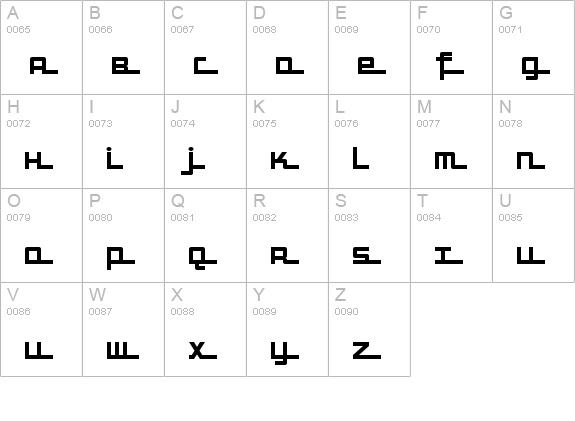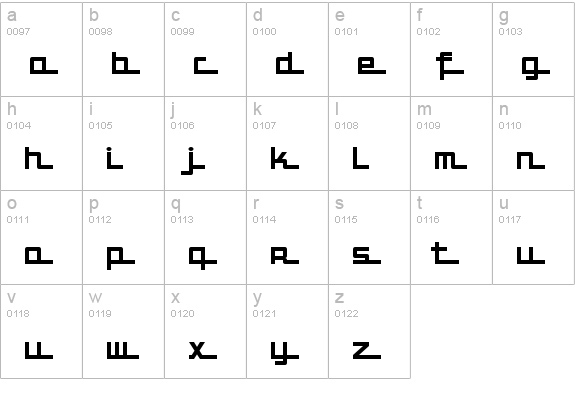
SuperHighway Font Details
Introducing SuperHighway font - a sleek and modern typeface that effortlessly combines sophistication with a touch of futuristic flair. With its clean lines and sharp edges, this font is perfect for conveying a sense of cutting-edge style in your designs. What sets SuperHighway font apart is not just its striking appearance, but also the fact that it is completely free to download. Yes, you read that right - this stunning font is available for free at FontsMarket.com, making it accessible to anyone looking to add a touch of modernity to their projects. Whether you're designing a website, creating a logo, or working on a print project, SuperHighway font is sure to make a bold statement. Download it today and elevate your designs to new heights with this exceptional typeface.